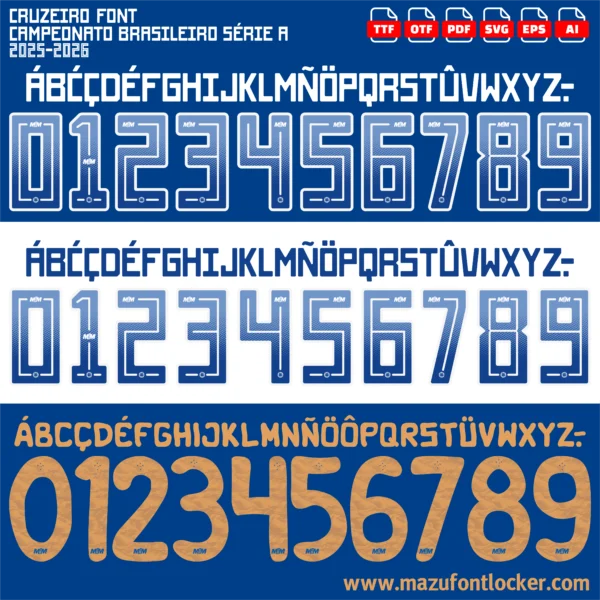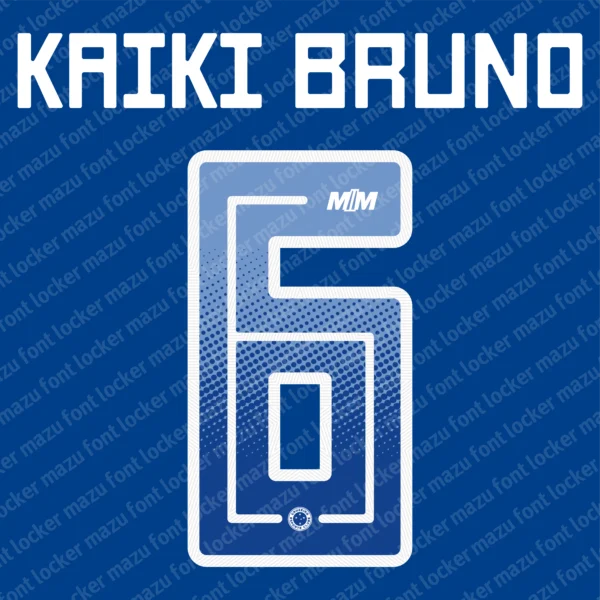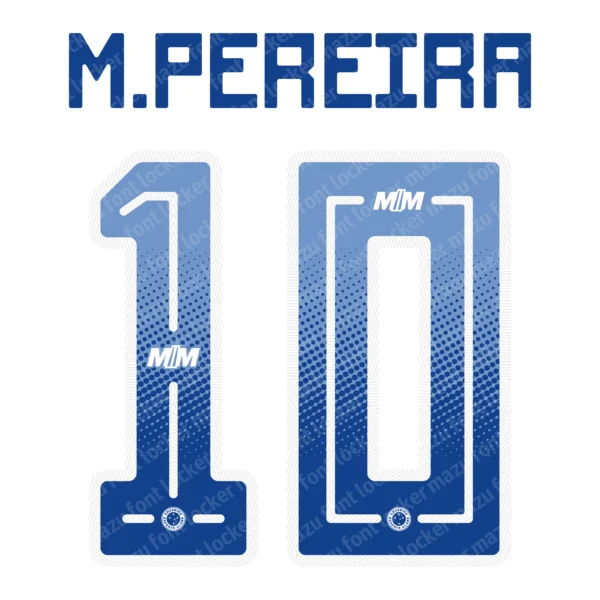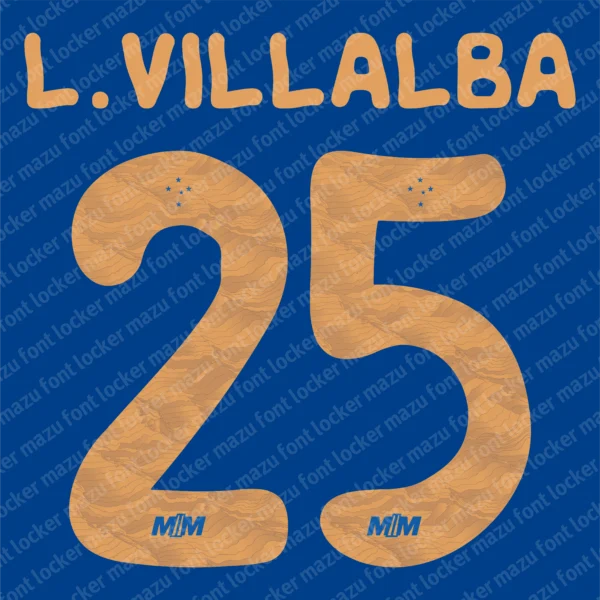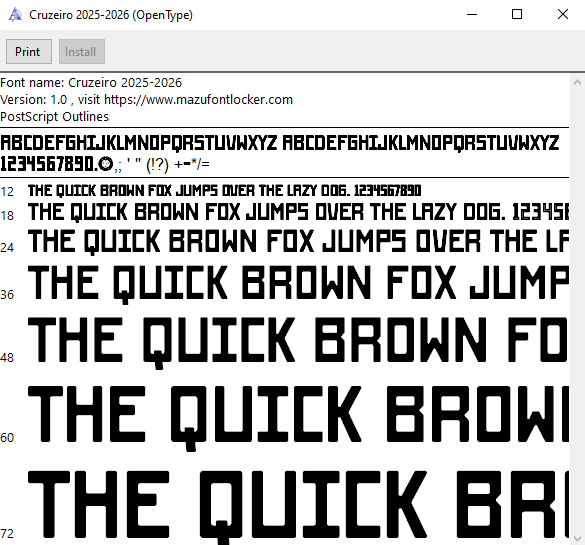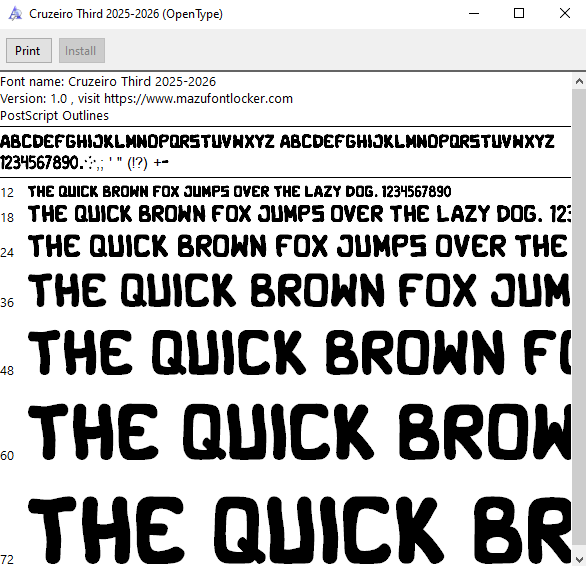
Cruzeiro 2025-2026 Font Vector – Epic Raposa Masterpiece
This font captures the razor-sharp, explosive, high-voltage lettering that embodies Cruzeiro’s proud club identity, rich Brazilian football heritage, iconic blue-and-white tradition, and unstoppable fighting spirit — delivering premium quality and pure explosive energy for jersey mockups, football graphics, sports branding, and fan creations.
Cruzeiro 2025-2026 Font Vector – Raposa Heritage Typeface
The Cruzeiro 2025-2026 Font Vector is a premium typeface that accurately recreates the official match lettering worn by Cruzeiro during their 2025-2026 campaign. This high-quality vector font kit captures the bold, clean, and instantly recognizable typography that perfectly complements the club’s iconic blue identity.
Designed for professional designers, football enthusiasts, and passionate Cruzeiro supporters, the Cruzeiro 2025-2026 Font Vector delivers exceptional authenticity for creating realistic jersey mockups, football merchandise, social media graphics, match posters, and custom fan artwork. Every character has been carefully recreated to match the powerful and precise visual style of one of Brazil’s most historic and successful football clubs.
Why Choose Cruzeiro 2025-2026 Font Vector
This font stands out thanks to its precise vector construction and authentic club-inspired styling. Every letter and numeral has been meticulously recreated to match the official shirt lettering used throughout the 2025-2026 season and associated campaigns. Whether you’re producing professional kit templates or creating eye-catching football content, the Cruzeiro 2025-2026 Font Vector delivers a genuine match-ready appearance inspired by the proud identity of the Raposa.
The lettering featured in the Cruzeiro 2025-2026 Font Vector combines clean geometric lines with powerful modern proportions. The result is a premium and highly readable typeface that reflects Cruzeiro’s fighting spirit, attacking football, resilience, and proud championship heritage.
- Complete uppercase A–Z alphabet and numbers 0–9 in authentic Cruzeiro 2025-2026 style
- Recreate the distinctive look of Cruzeiro player names and squad numbers for creative projects
Cruzeiro 2025-2026 Season
The 2025-2026 season marks another exciting chapter for Cruzeiro as the club continues its pursuit of excellence on the domestic and continental stage. Competing in high-profile Brasileirão matches and international competitions, the Raposa will once again showcase its iconic blue kit in front of passionate supporters.
Known for its progressive style of play, loyal fanbase, and commitment to attacking football, Cruzeiro remains one of Brazil’s most admired clubs. The Cruzeiro 2025-2026 Font Vector is designed to capture the bold visual character associated with the club’s modern football identity. For more information about the club and the latest news, visit the official Cruzeiro website.